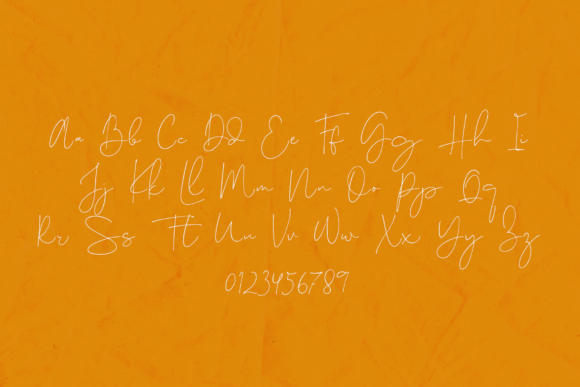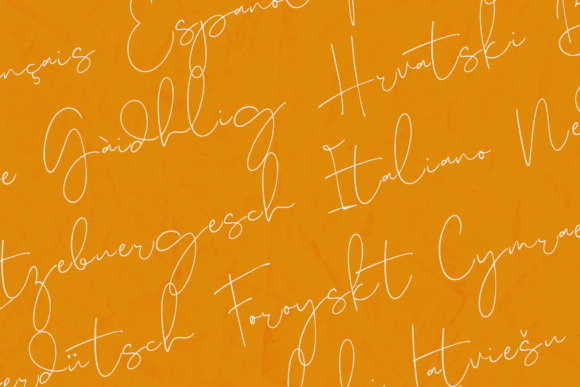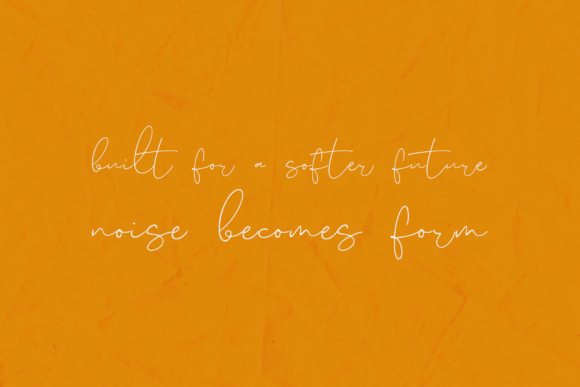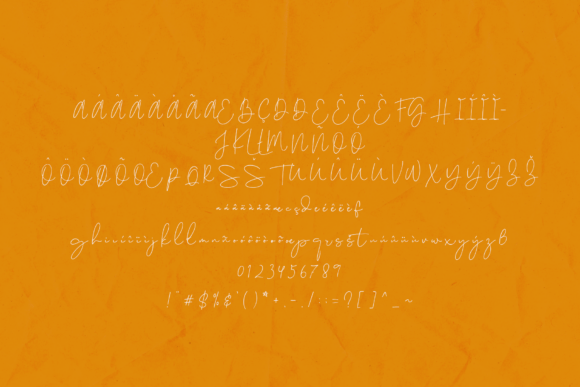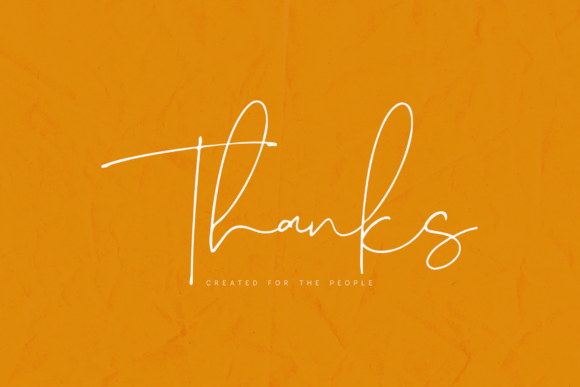
Introduction to Marken Font Font
Fonts play a crucial role in design, and the Marken Font font is a typeface that brings both character and versatility to any project. Whether you’re working on a branding project, a website, or a print design, the Marken Font font offers a unique style that can elevate your work.
Marken Script: Effortless Personal Signature Capture the breezy elegance of authentic penmanship with Marken Script.
This monolinear script features airy, elongated loops and a relaxed rhythm that mimics a quick, confident signature Its minimalist construction ensures it feels light and contemporary, providing a sophisticated βhuman touchβ to digital and print layouts without overwhelming the design.
Key Features of Marken Font Font
Why Choose Marken Font Font?
The Marken Font font is more than just a typeface β it’s a design tool that helps you communicate your message with style and clarity. Its unique character set and versatile design make it suitable for a wide range of applications, from elegant invitations to bold headlines.
With its carefully crafted letterforms and balanced proportions, the Marken Font font ensures readability and visual appeal across all mediums.
What makes Marken Font font special?
The Marken Font font stands out with its unique design, exceptional readability, and versatility across various design applications.